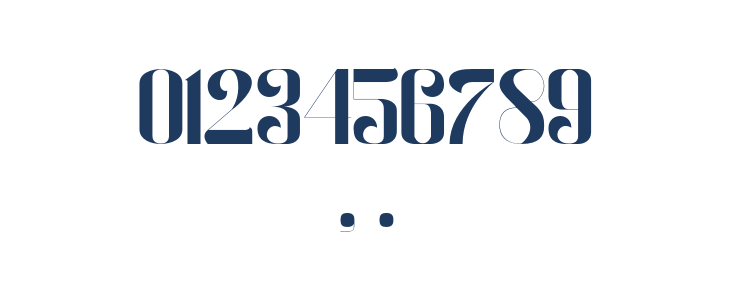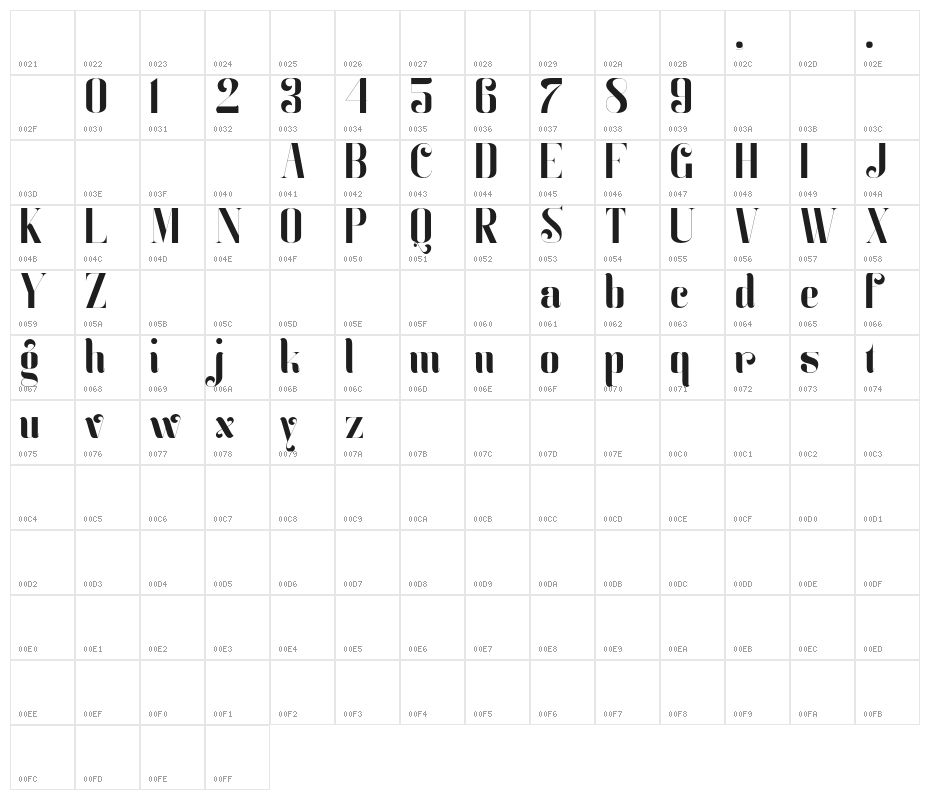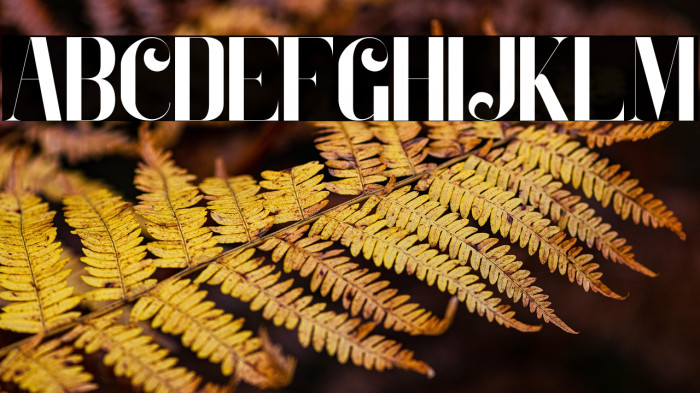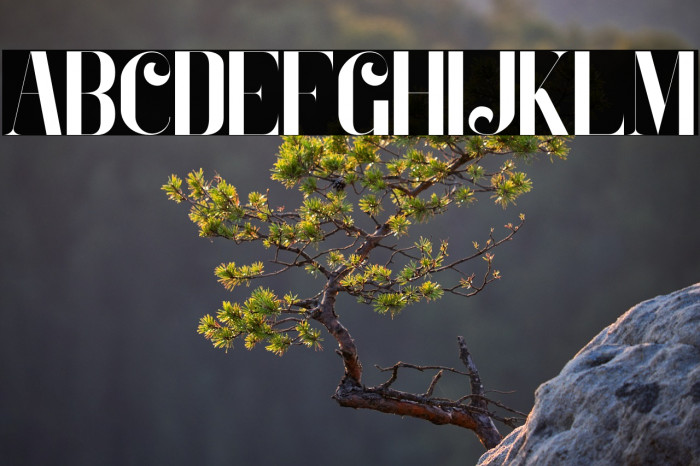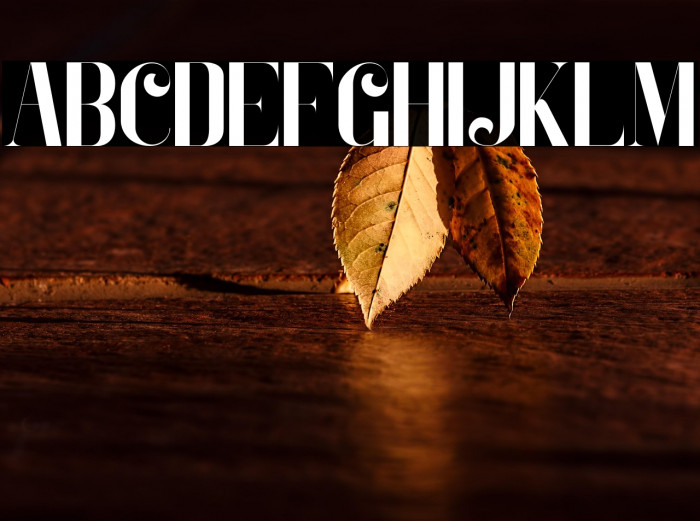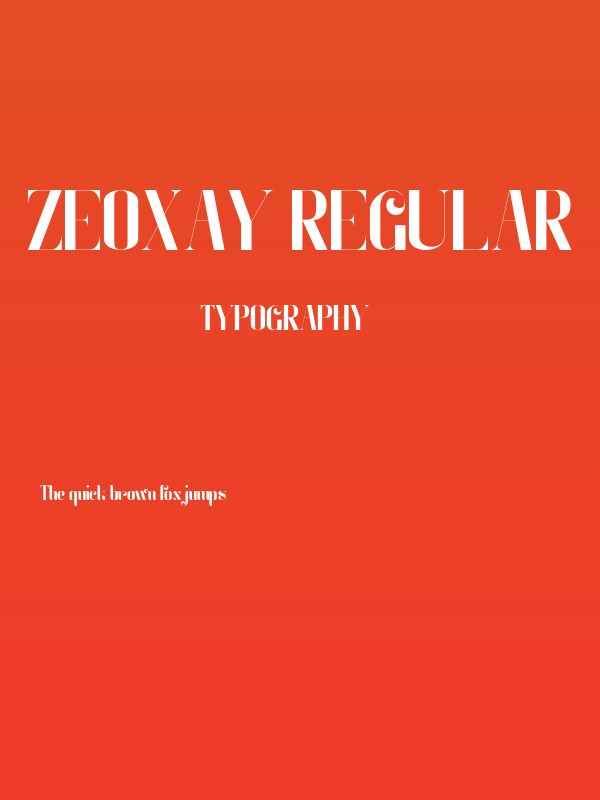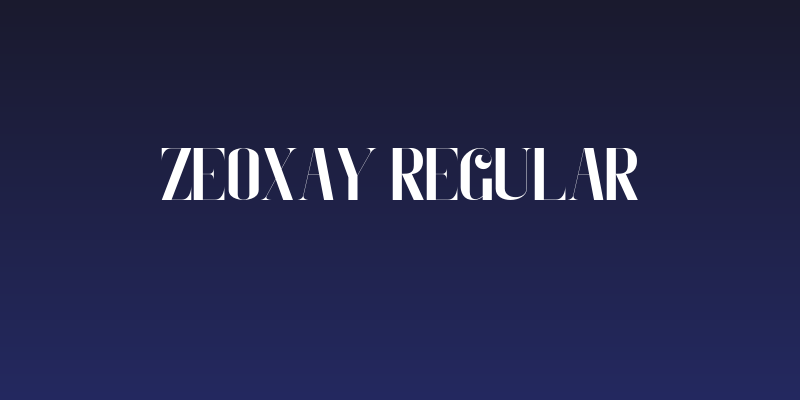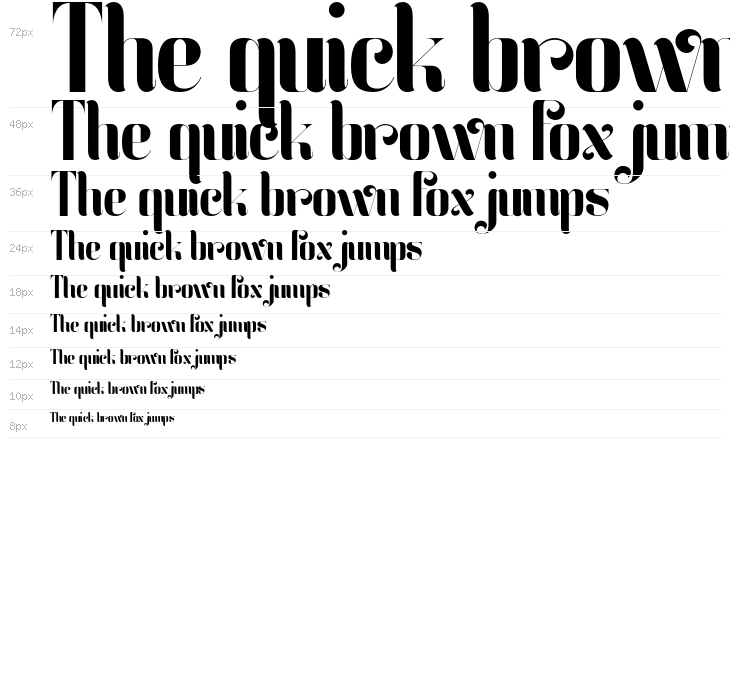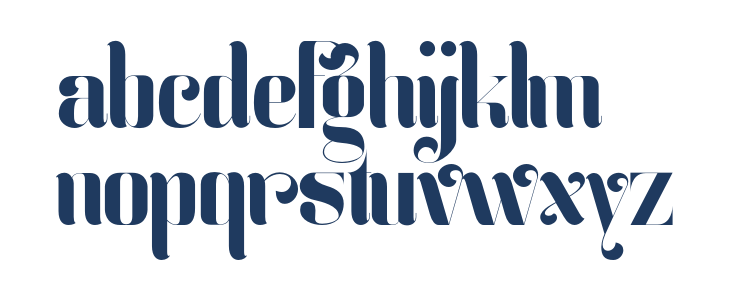
Zeoxay-Regular Font
Zeoxay-Regular Description
This font features a striking blend of modern and vintage elements, characterized by its high contrast between thick and thin strokes. The uppercase letters are bold and commanding, with unique flourishes that add a decorative touch. The lowercase letters maintain a consistent style, offering a harmonious flow with subtle curves. Numbers are designed with a similar aesthetic, ensuring readability while maintaining the font's distinctive style. The special characters are thoughtfully crafted, complementing the overall design. This font is ideal for projects that require a bold statement with a touch of elegance.
| Overall Style | Modern, Vintage |
| Proposed Projects | Ideal for branding, editorial design, posters, and luxury product packaging. |